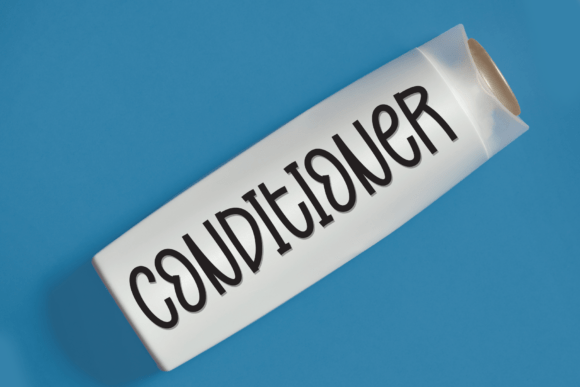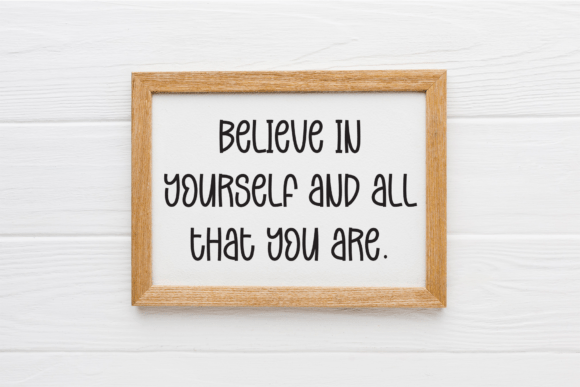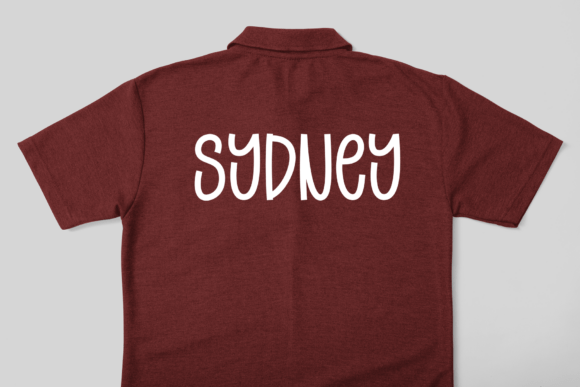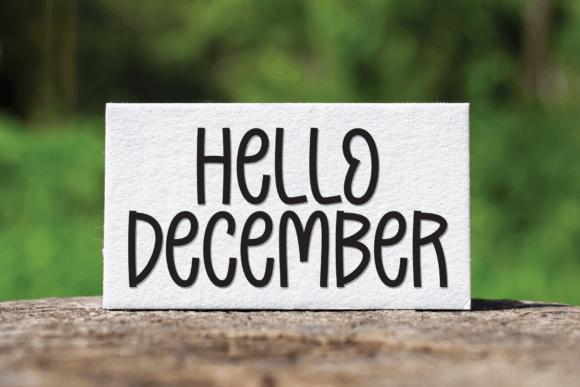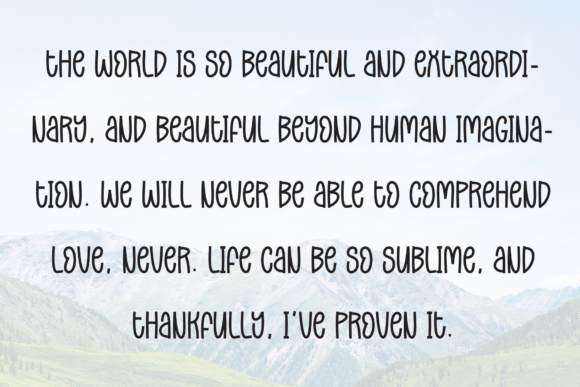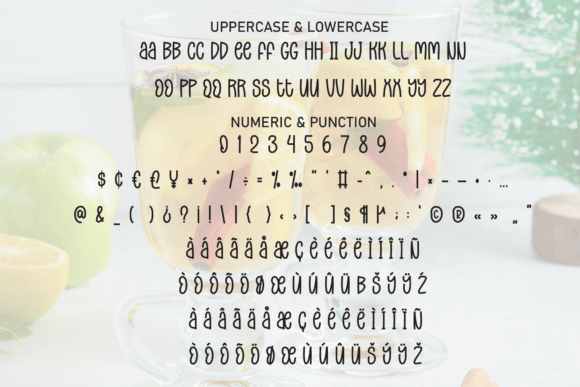
Introduction to Lemonade Christmas Font
Introducing our adorable, personalized handwriting-style display font, specially crafted to embody a tender, charming appeal.
Radiating an enchanting blend of sweetness and friendliness, itโs designed to add the perfect playful touch to all your creative designsโfrom heartwarming wedding invitations to delightful greeting cards Ideal for those designs that demand an enchanting warmth and a sprinkle of joy, this font is here to elevate your creative expression like never before.
Key Features of Lemonade Christmas Font
Why Choose Lemonade Christmas Font?
Lemonade Christmas Font offers exceptional quality and versatility, making it a valuable addition to your design toolkit. Whether you’re creating for personal projects or commercial use, Lemonade Christmas Font delivers professional results.